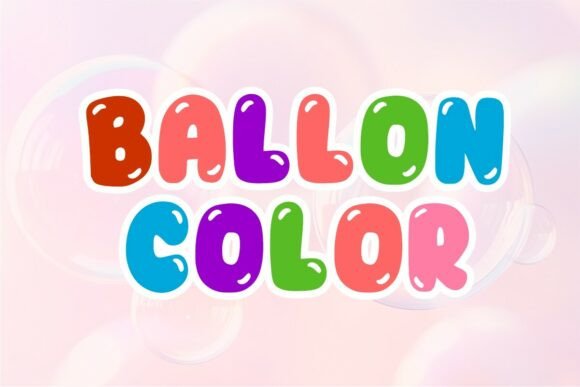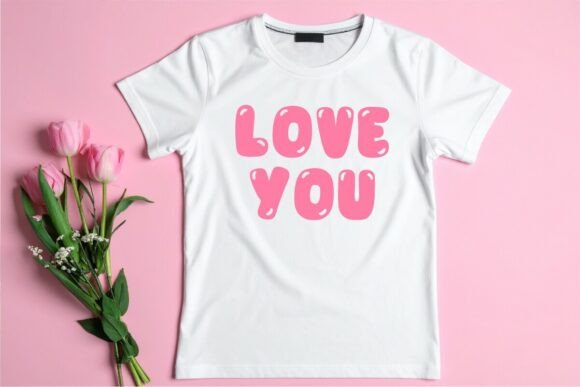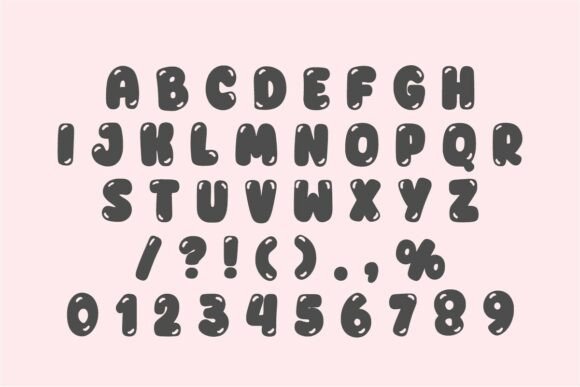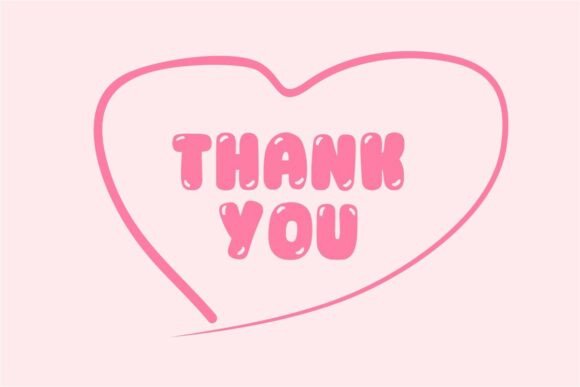
The Joy of Cute Bubbly: A Font That Brings Happiness to Your Designs
I’ll never forget the time I was working on a project for a children’s birthday party, and I just couldn’t find the right font to capture the playful and fun vibe I was going for. The client wanted something that would make kids (and adults!) smile, and I was determined to deliver. That’s when I stumbled upon Cute Bubbly, a playful and adorable bubble-style display font that instantly brought my design to life.
An Honest Review of Cute Bubbly
So, what makes Cute Bubbly so special? Let’s dive into the good stuff! 😊
- ✨ Playful and adorable design: Cute Bubbly has a soft, rounded, and kawaii look that’s perfect for children’s designs, cute branding, logos, stickers, posters, packaging, social media graphics, and fun headline titles.
- ✅ Bold and bubbly letterforms: The font’s bold and bubbly letterforms create a cheerful, friendly, and eye-catching appearance that’s sure to grab attention.
- ✅ Versatile and easy to use: Cute Bubbly is a display font that’s easy to use and pairs well with a variety of other fonts, making it perfect for a wide range of design projects.
Of course, no font is perfect, and Cute Bubbly has a few small quirks to keep in mind:
- 🤔 Limited use cases for body text: While Cute Bubbly is amazing for headlines and titles, it’s not the best choice for body text due to its bold and playful design.
- ⚠️ May not work well with very dark or busy backgrounds: The font’s light and airy design may get lost on very dark or busy backgrounds, so be sure to choose a background that lets the font shine.
The Designer Inspiration Behind Cute Bubbly
Cute Bubbly was designed with one goal in mind: to bring joy and playfulness to designs. The font’s creator was inspired by the kawaii culture and wanted to create a font that would make people smile. With its bold and bubbly letterforms, Cute Bubbly is sure to bring a touch of happiness to any design project.
| Font Name | Cute Bubbly Font |
- Q: What is Cute Bubbly?
- A: Cute Bubbly is a playful and adorable bubble-style display font with a soft, rounded, and kawaii look.
- Q: What can I use Cute Bubbly for?
- A: Cute Bubbly is perfect for children’s designs, cute branding, logos, stickers, posters, packaging, social media graphics, and fun headline titles.
- Q: Is Cute Bubbly easy to use?
- A: Yes, Cute Bubbly is a display font that’s easy to use and pairs well with a variety of other fonts.